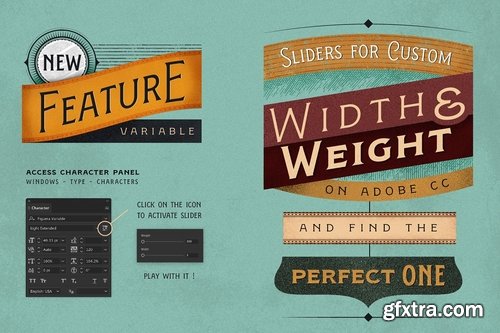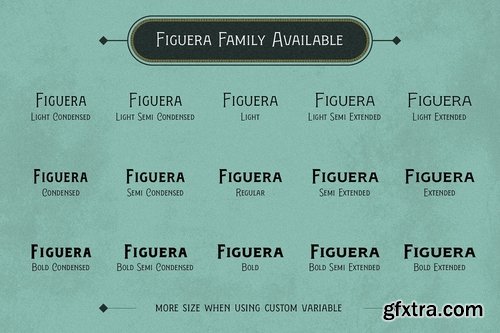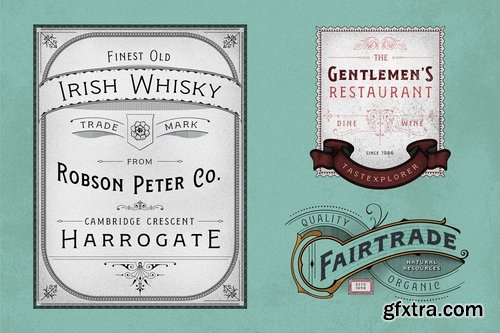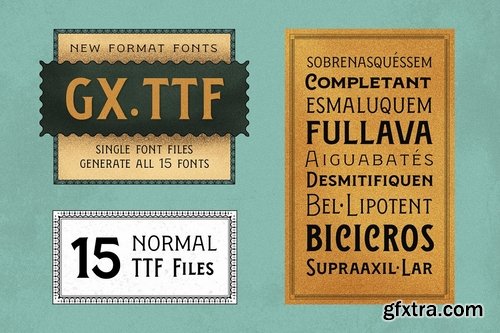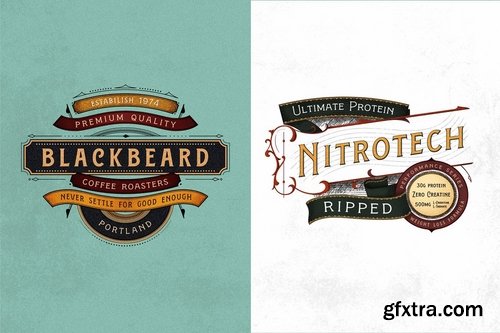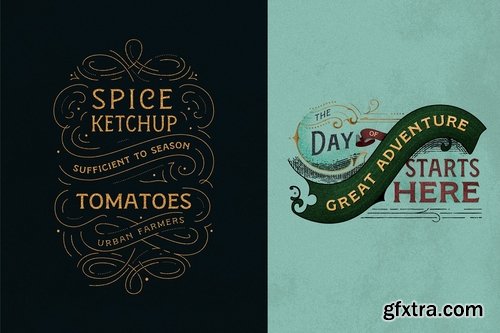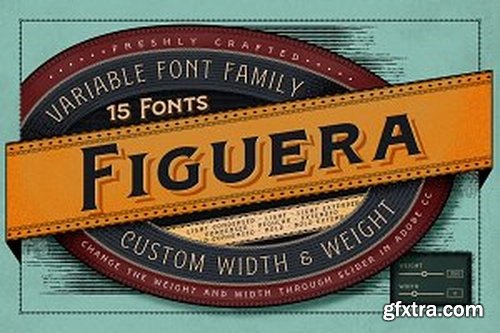
Figuera Variable
Figuera Variable are inspired with an Serif victorian style of typefaces. With a different width and weight you can make your design are more fluid within just only use a single family fonts. Comes with different format and also Bonus Borders.
It’s a brand new fonts comes with a new Variable Features. Variable that makes you create an custom width and weight aside in the available font files.